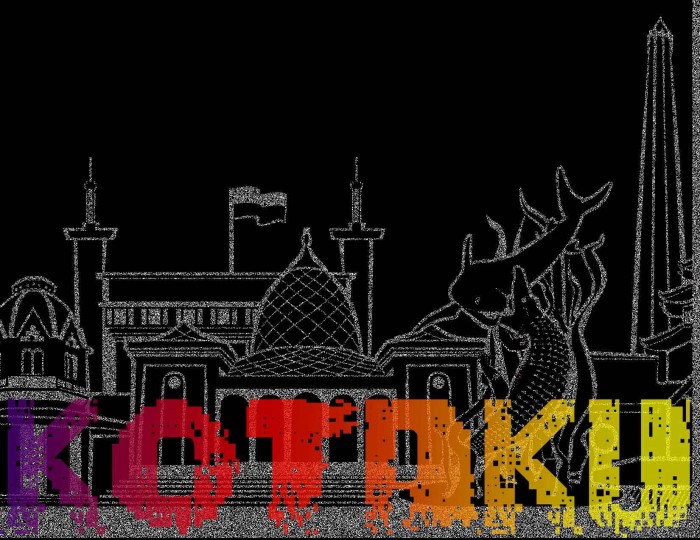
This is really good. I hope you finish it. 10/10
Wow! font that you made is very nice, already resembles a real city. Can you give me some tips?
great job! the details are awesome:)
Totally cool. good job